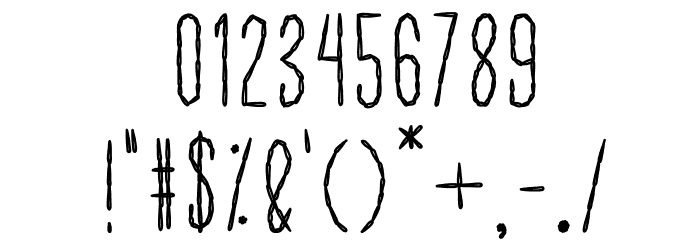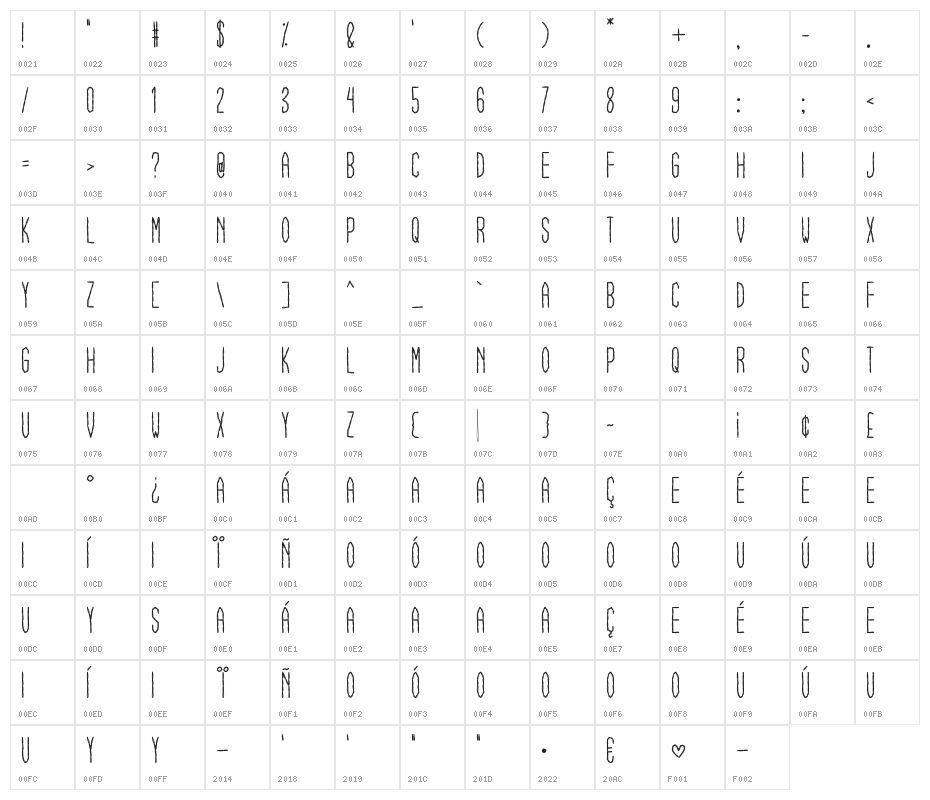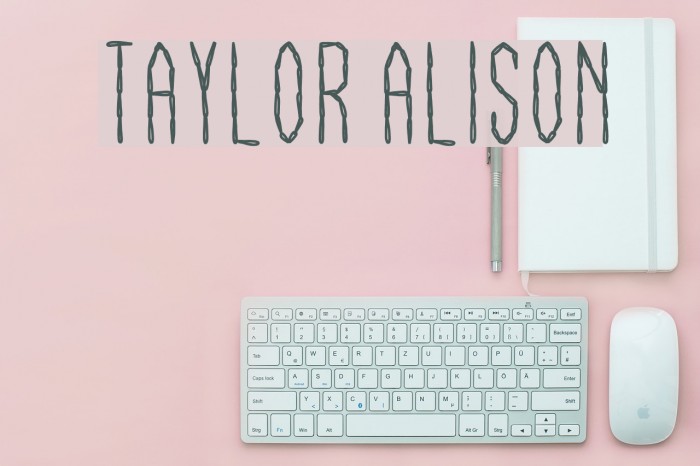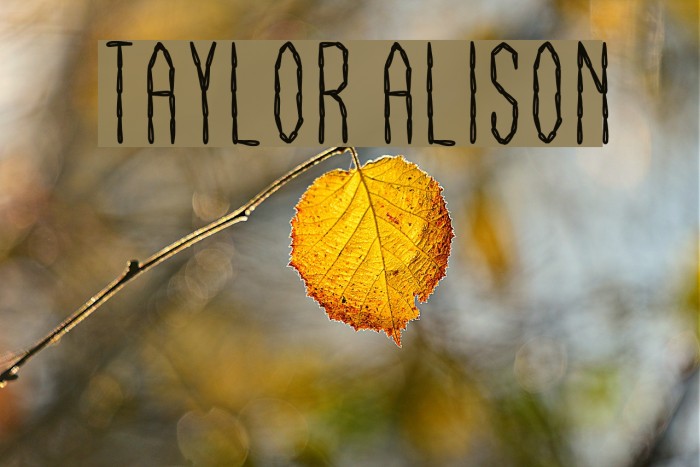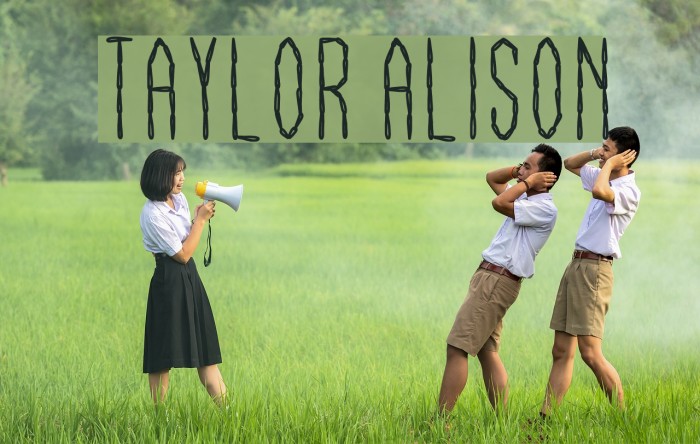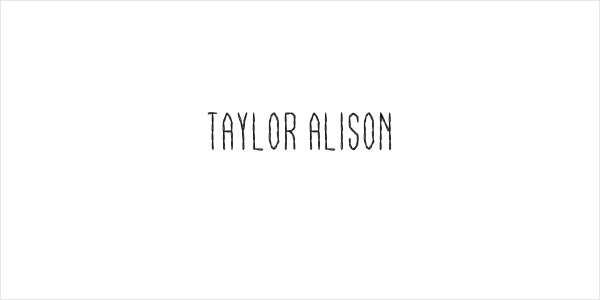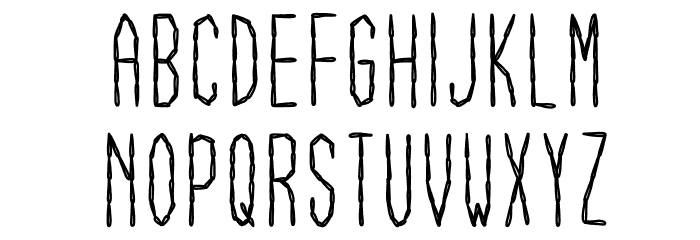
Taylor Alison Font
Taylor Alison Description
This font features a distinctive, hand-drawn style with a slightly rough texture, giving it a unique and organic appearance. The characters are tall and narrow, with uneven strokes that add to its handcrafted feel. The uppercase and lowercase letters maintain a consistent height, while the numbers and special characters follow the same stylistic approach. This font's imperfect lines and artistic flair make it stand out, providing a creative and whimsical touch to any design.
| Proposed Projects | Ideal for creative projects such as posters, invitations, and branding that require a personal, artistic touch. |